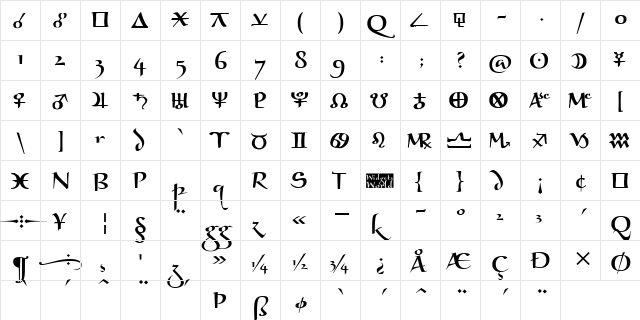
AstroGanza Regular
| Designer | Jason Davies |
Design Context for AstroGanza Typeface
AstroGanza is a composed and adaptable typeface that performs quietly and consistently across a wide range of design contexts.